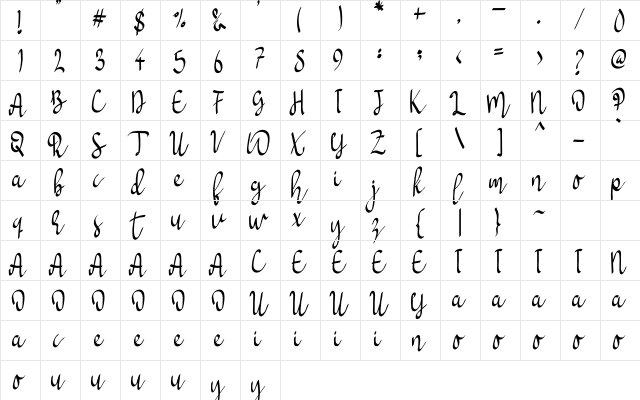
Socialita Regular
Design Context for Socialita Typeface
Socialita is a composed and adaptable typeface that performs quietly and consistently across a wide range of design contexts.